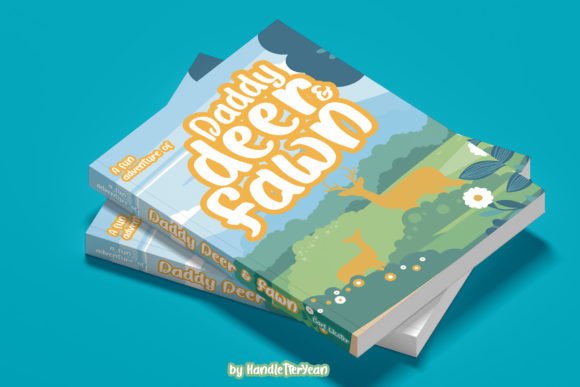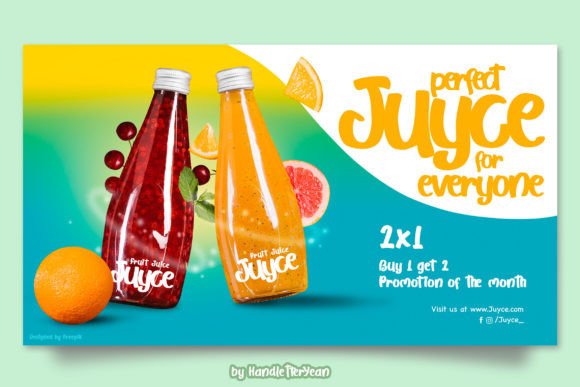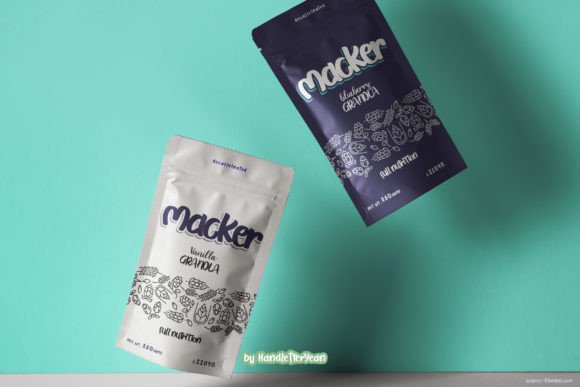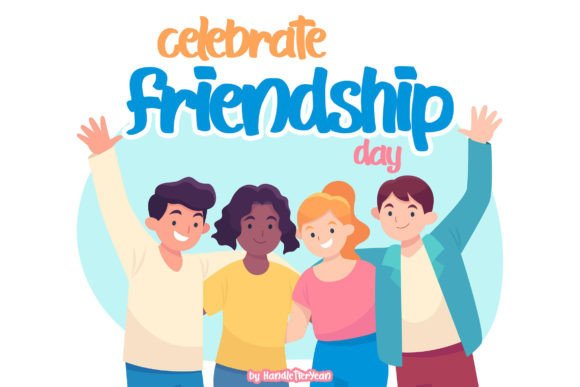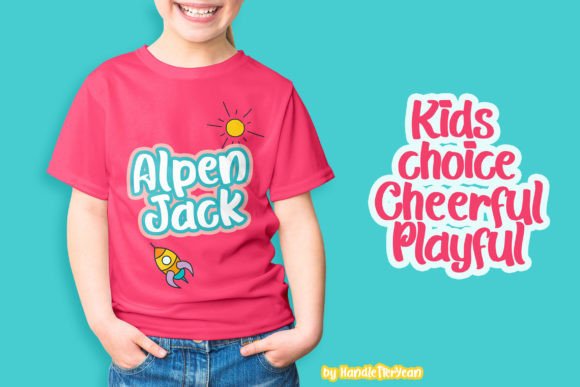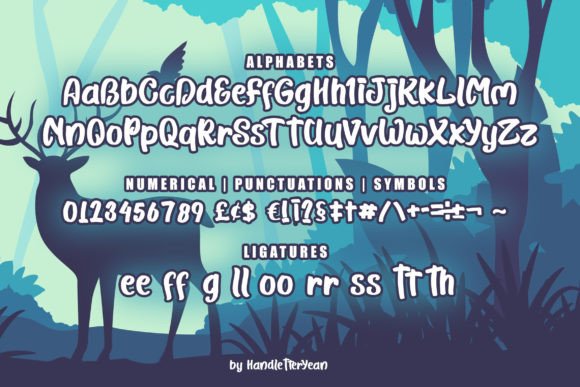
Introducing Alpen Jack Font: Elevate Your Designs with a Unique Handwritten Style
Are you tired of using the same old fonts in your designs? Do you want to add a personal touch that sets your work apart from the rest? Look no further than Alpen Jack, a handwritten display font that brings a fresh and unique style to the table. In this article, we’ll dive into the features and benefits of Alpen Jack, and explore how it can help you take your designs to the next level.
What is Alpen Jack Font?
Alpen Jack is a carefully crafted handwritten display font that exudes personality and charm. Its distinctive style is perfect for designers and crafters who want to add a touch of whimsy and individuality to their work. Whether you’re creating custom designs for personal projects or commercial use, Alpen Jack is the perfect choice.
Key Features of Alpen Jack Font
- Unique Handwritten Style: Alpen Jack boasts a one-of-a-kind handwritten style that’s sure to grab attention and leave a lasting impression.
- Versatility: This font is suited for a wide range of projects, from craft and custom designs to digital and print media.
- Ease of Use: With Alpen Jack, you can easily add a personal touch to your designs without requiring extensive design experience.
Benefits of Using Alpen Jack Font
So, why choose Alpen Jack for your design projects? Here are just a few benefits you can expect:
- Stand Out from the Crowd: With Alpen Jack, you can create designs that are truly unique and eye-catching, setting you apart from others in the design community.
- Endless Creative Possibilities: The versatility of Alpen Jack means you can use it for a wide range of projects, from handmade crafts to professional design work.
How to Use Alpen Jack Font in Your Designs
Using Alpen Jack in your designs is easy! Here are a few tips to get you started:
- Pair it with Other Fonts: Experiment with pairing Alpen Jack with other fonts to create visually appealing combinations.
- Use it for Headings and Titles: Alpen Jack is perfect for headings and titles, adding a touch of personality to your designs.
- Get Creative with Colors and Textures: Don’t be afraid to experiment with different colors and textures to make your designs truly pop.
Who is Alpen Jack Font for?
Alpen Jack is perfect for:
- Graphic Designers: Add a unique touch to your designs and stand out in the industry.
- Crafters: Use Alpen Jack to create custom designs for handmade crafts, DIY projects, and more.
In conclusion, Alpen Jack is a game-changing handwritten display font that’s perfect for designers and crafters looking to add a personal touch to their work. With its unique style, versatility, and ease of use, Alpen Jack is the perfect choice for anyone looking to elevate their designs and stand out from the crowd.